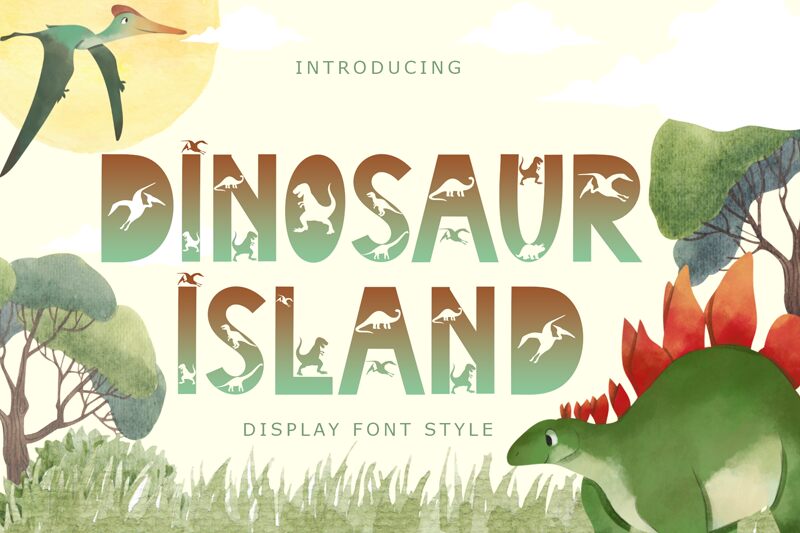
Dinosaur Island font by Yoga Letter is a whimsical and decorative design, free for personal use. Inspired by fossils and organic elements, this font captures a playful theme and brings a unique texture to your work. Its engaging and light-hearted style is ideal for projects aiming to attract a contemporary and youthful audience.
Consider incorporating Dinosaur Island in children's books, themed party invitations, educational materials, gaming interfaces, storytelling apps, event posters, website headers, or other playful themed designs. Its whimsical mood can easily draw attention and add a sense of fun to any project.